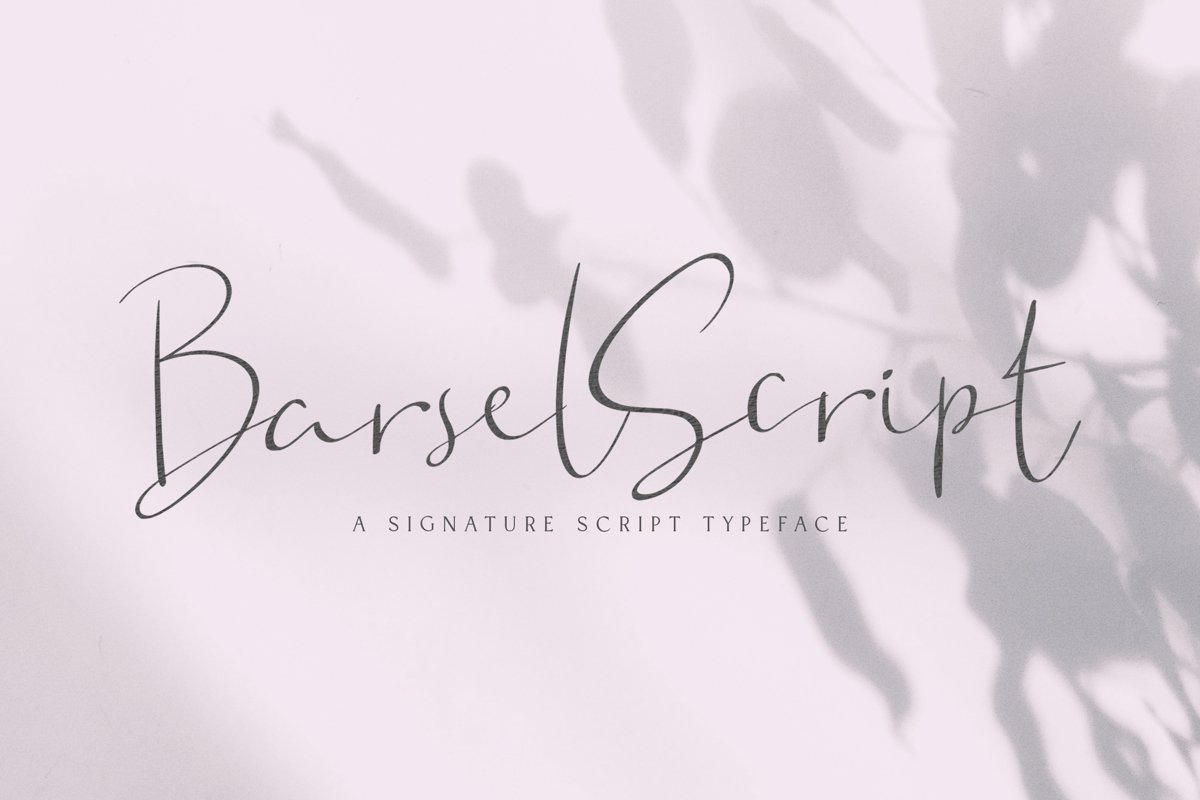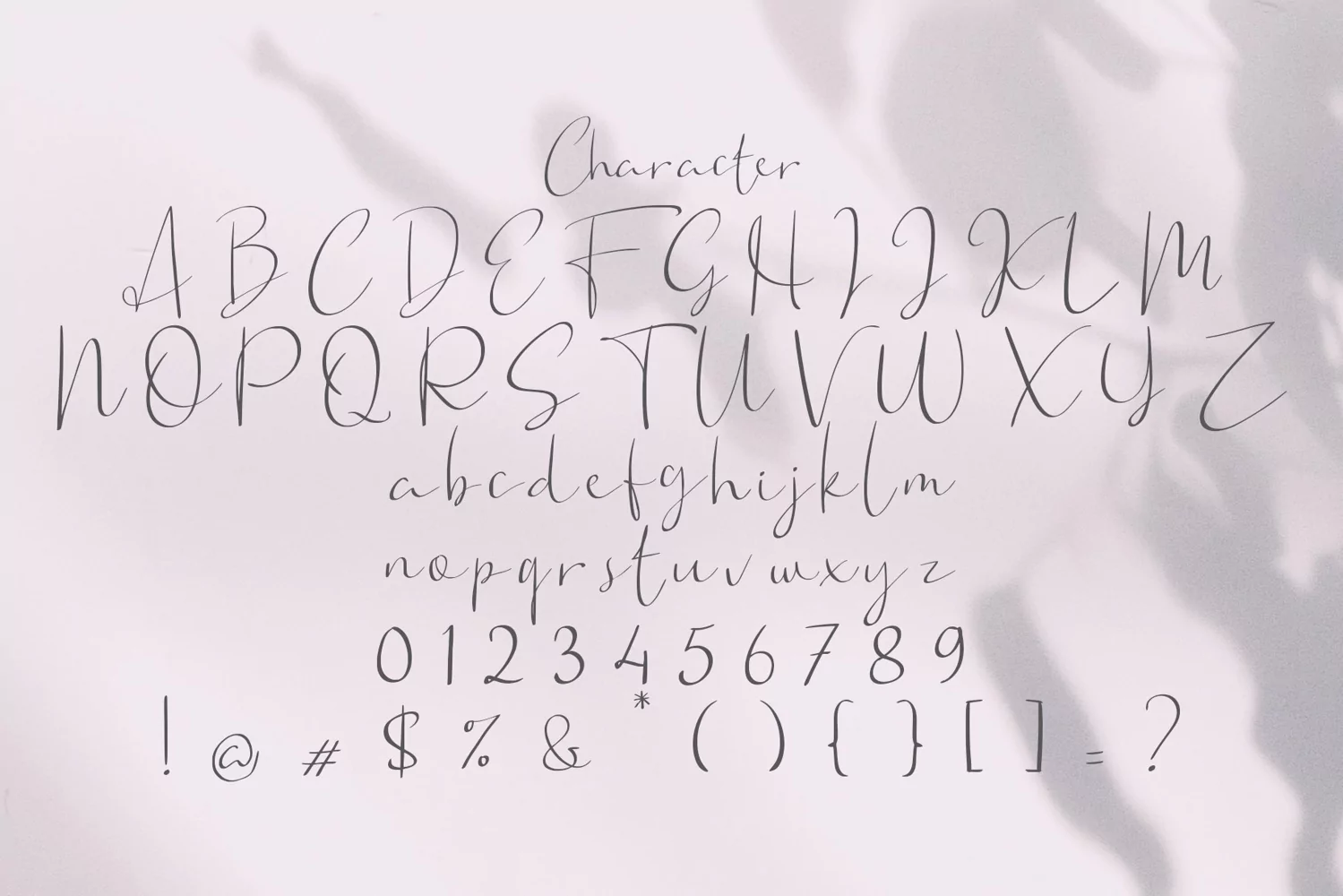
Barsel is a signature script typeface. Perfect for display, poster, crafting needs, florist needs, wedding needs, business card, signature, packaging, merchandise, branding, logo, logotype, header, tittle, and many more.